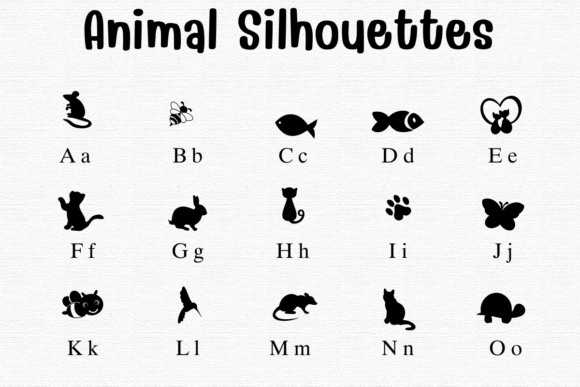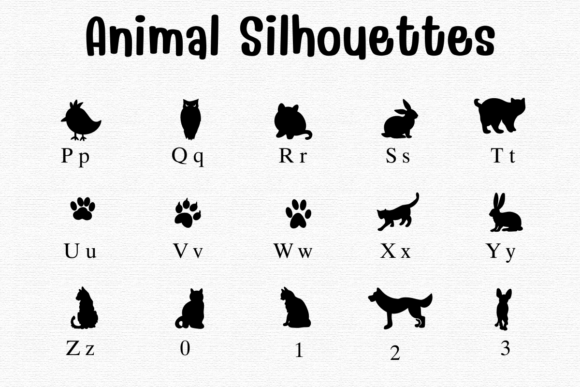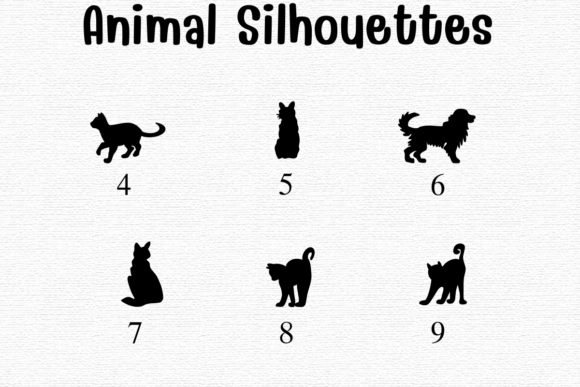
Animal Silhouettes Font
About the Animal Silhouettes Font
Step up your design game with Animal Silhouettes Font, a font that exudes confidence and style. Animal Silhouettes is a versatile dingbats font featuring cute and clean silhouettes of animals, insects, birds, and paw prints. Great for kids’ projects, pet-themed branding, wildlife designs, and educational materials, it brings adorable nature shapes to your creative toolbox.
This font’s friendly, playful nature makes it ideal for children’s books, logos for pet-related businesses, and playful packaging designs. It also works well in posters and social media graphics where a lighthearted, approachable aesthetic is desired. However, its limited character set makes it unsuitable for large bodies of text or UI elements requiring extensive readability.
Animal Silhouettes pairs well with clean sans-serif fonts like Open Sans for body copy, creating a balanced contrast between the playful illustrations and easily readable text. For a more sophisticated feel, consider pairing it with a delicate serif like Lora, maintaining visual interest without overwhelming the design. Avoid pairing it with overly bold or ornate fonts, which could clash with its simple silhouette style.
The overall personality is undeniably cheerful and approachable, making it a strong choice for brands targeting young audiences or conveying a sense of warmth and approachability.